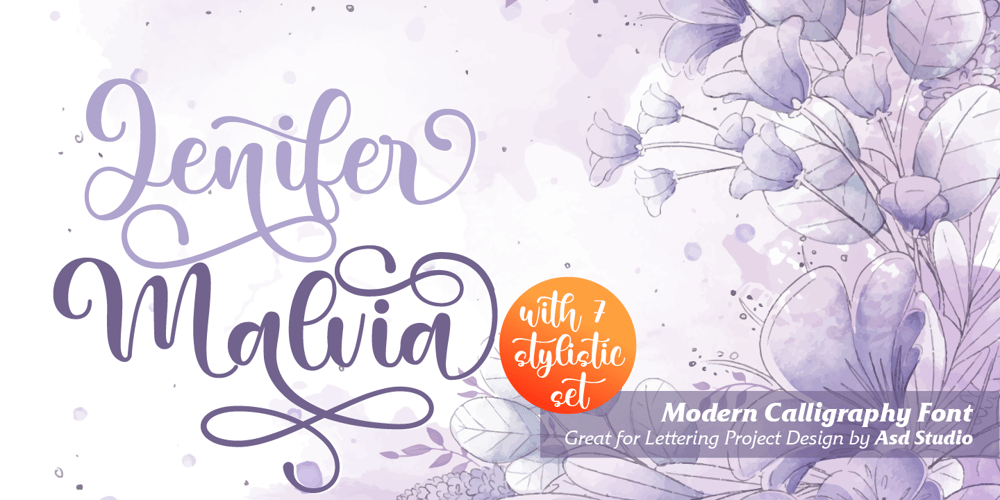
Jenifer Malvia Font Family was designed by Ghazi and published by Asd Studio. Jenifer Malvia contains 1 styles and family package options. Jenifer Malvia is a script font created with love, sincerity, and patience. can be used to make invitation writing, lettering, and all graphic design needs. This font is equipped with 7 stylistic sets that will make your design look more attractive and beautiful.Thank you if you are interested in purchase and using this font.